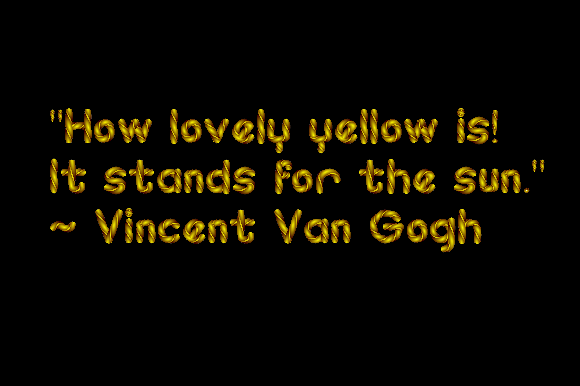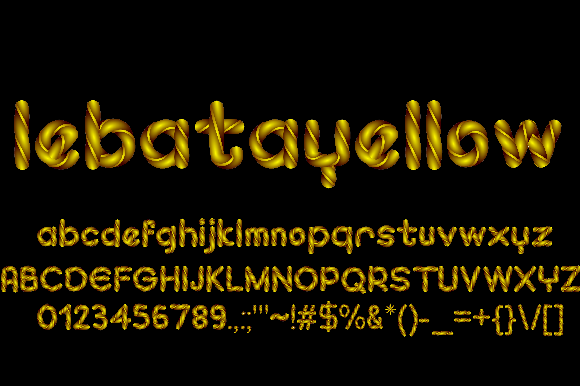
About Lebatayellow Font
Lebatayellow is indeed a cool and fun color font that exudes playfulness and authenticity. Its vibrant yellow color and unique design make it an excellent choice for children’s activities, school projects, and any creative endeavor aimed at capturing the attention and imagination of young audiences.
Whether you’re designing worksheets, educational materials, invitations, or crafting personalized projects for children, Lebatayellow will add a cheerful and engaging touch. Its lively and expressive nature brings a sense of fun and excitement to the design, making it visually appealing and captivating.
Embrace the playful and authentic vibe of Lebatayellow and let it bring joy and creativity to your children’s activities, school projects, and any other designs aimed at the young audience. Its cool and fun characteristics will undoubtedly enhance the visual appeal and make your projects stand out. Enjoy exploring the endless possibilities that Lebatayellow offers and have a great time designing!